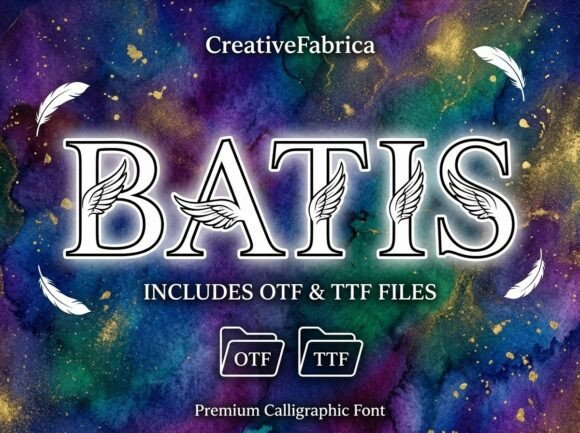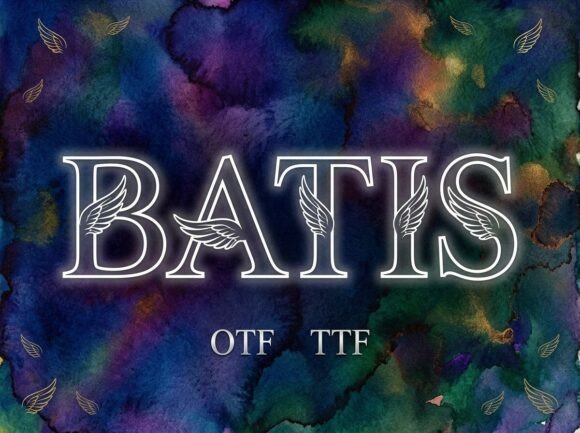
Introduction to Batis Font
As a designer, you know that moment of pure inspiration when a font comes along and makes your creative project pop. You envision the perfect layout, the perfect color scheme, and the perfect typography to tie it all together. For those moments, you need a font that’s not just any font – you need the Batis Font. This stunning decorative display font is designed to be the center of attention, with unique artistic elements and a strong visual personality that’s sure to make your design stand out.
| 👤 Author | LINEART3 |
The Batis Font is perfect for designers who want to break away from the ordinary and create high-quality, attention-grabbing designs. With its professional and polished finish, it’s versatile enough for bold headlines, artistic logos, and creative packaging. Whether you’re working on a project with a transparent background or need a design resource that’s compatible across all devices, the Batis Font has got you covered.
Key Features of Batis Font
- High-quality design suitable for creative projects, including logos, graphics, and text-based designs.
- Unique, modern aesthetic with a transparent background, allowing for easy integration with various design elements.
- Designed with a high resolution (300 DPI) for crisp, clear display in various sizes and applications.
- Perfect for use in digital design projects, including web design, social media graphics, and mobile app design.
- Can be easily customized and edited using popular design software, including Adobe Illustrator and Photoshop.
Honest Review: Batis Font
I recently had the chance to work with the Batis Font, and I must say it’s been a great addition to my design resources. This high quality font is perfect for any creative project that needs a unique touch.
- ✨ The transparent background makes it easy to overlay text on images or videos.
- ✨ The Batis Font is highly customizable, allowing me to tailor it to fit my design style.
- ⚠️ The font is only available in a limited number of weights and styles.
- ⚠️ The transparency can sometimes make the text difficult to read, especially on darker backgrounds.
Overall, I’m really impressed with the Batis Font. It’s a great design resource that’s perfect for anyone looking to add a unique touch to their creative project. While it has some limitations, the benefits far outweigh the drawbacks. I would highly recommend it to any designer looking for a high quality, free font.
Tips for Getting the Most Out of Batis Font
To get the most out of the Batis Font, use it in conjunction with other design elements, such as graphics and images. Experiment with different font sizes and styles to create a unique and creative look. You can also use the font in conjunction with a transparent background to create a clean and modern design.
The Batis Font is a versatile font that can be used in a variety of projects, including presentations, documents, and websites. It’s a great font to use for creating a high-quality and creative project with a transparent background.
Does the Batis Font have a transparent background?
No, the Batis Font does not have a transparent background. However, you can use a design tool like Adobe Illustrator or Canva to create a transparent background for your design project. This will allow you to use the font on any background color or image.